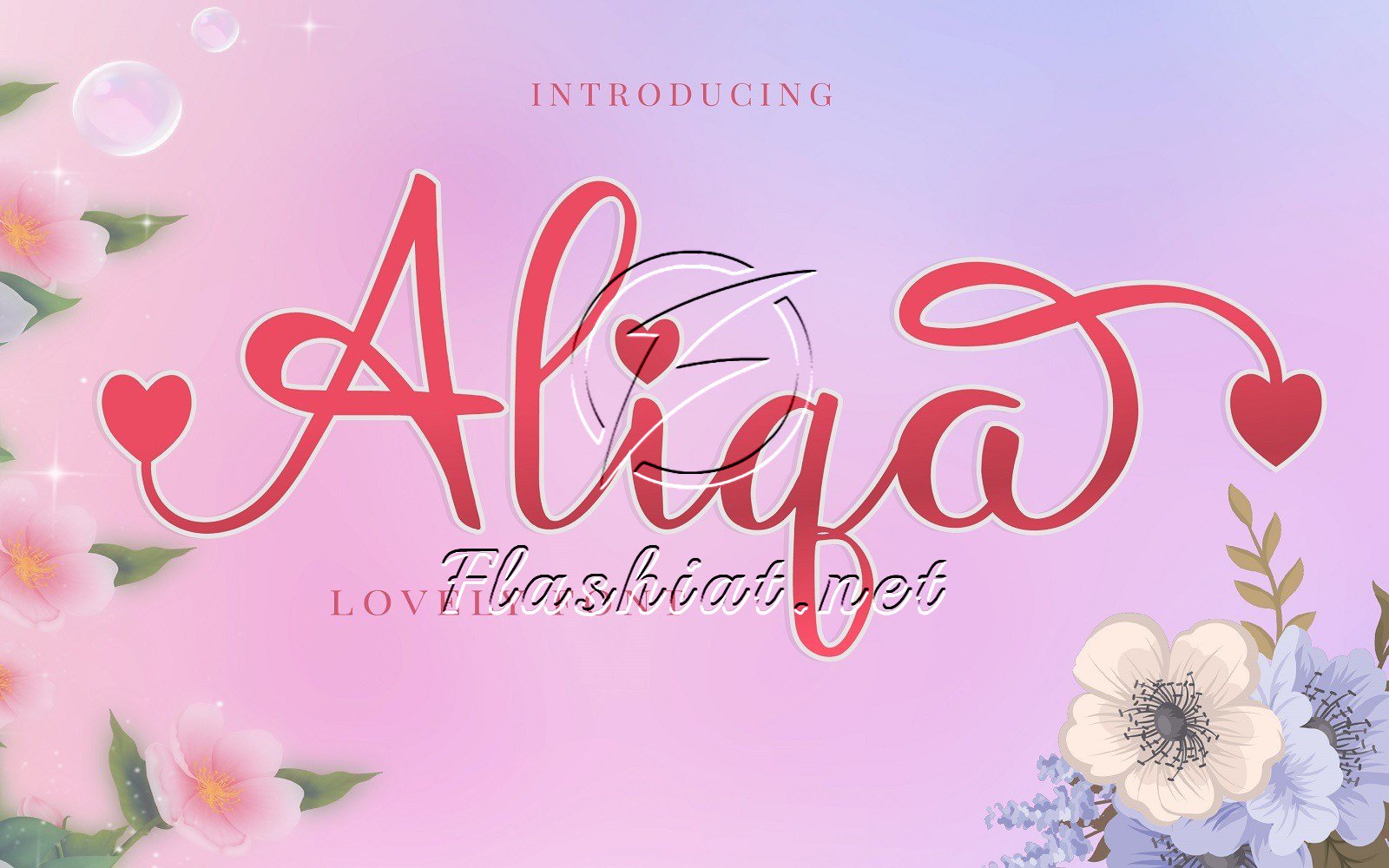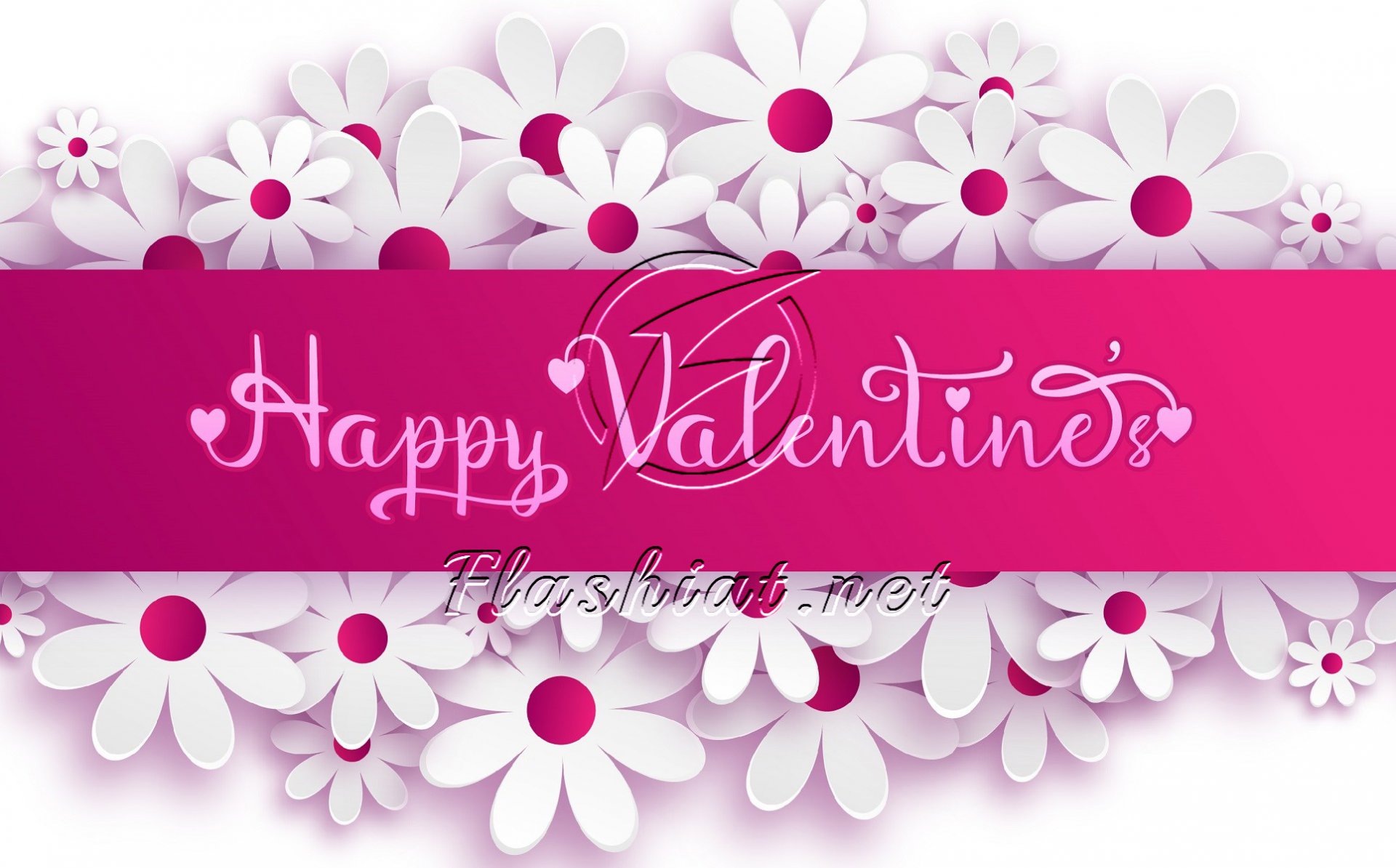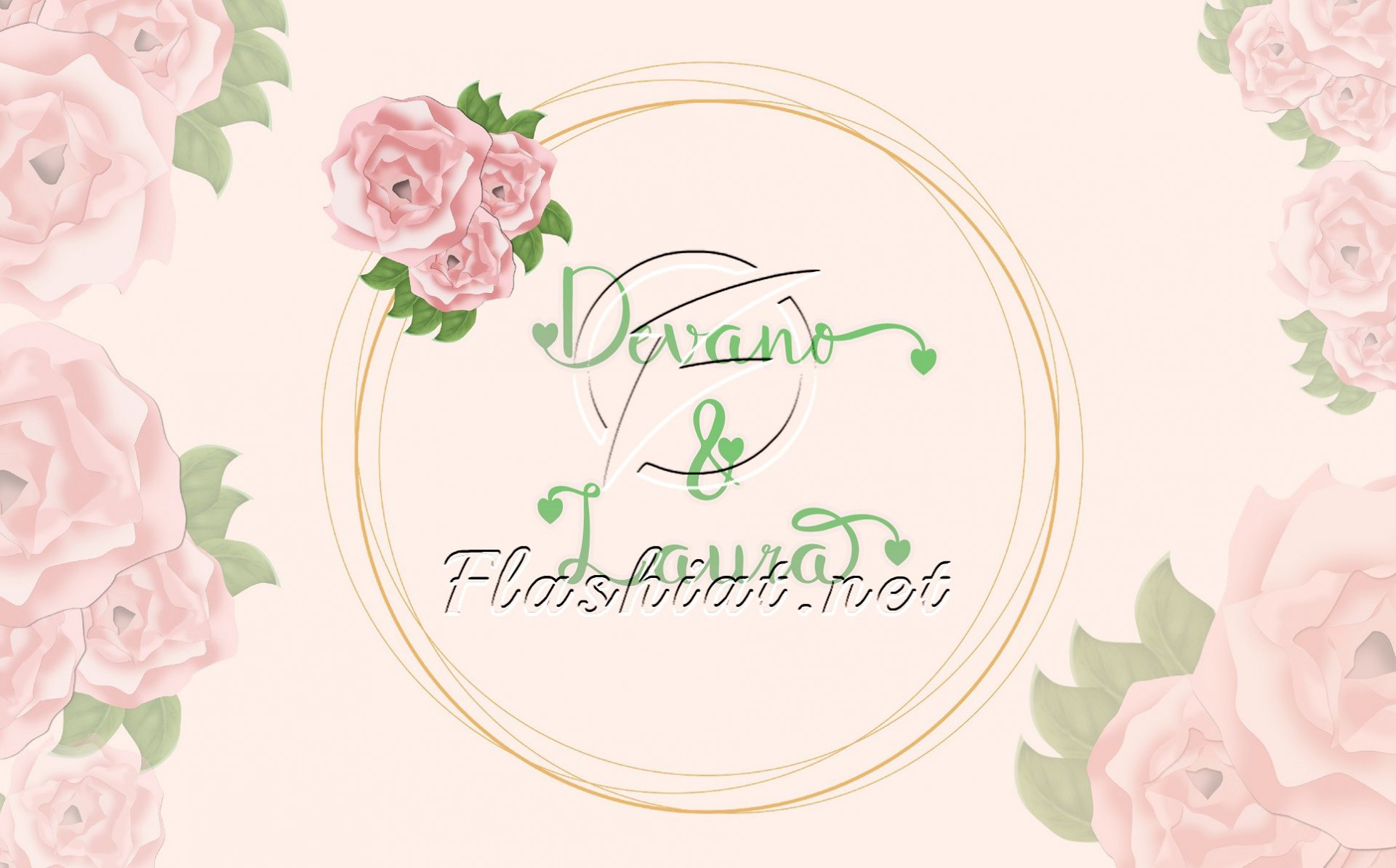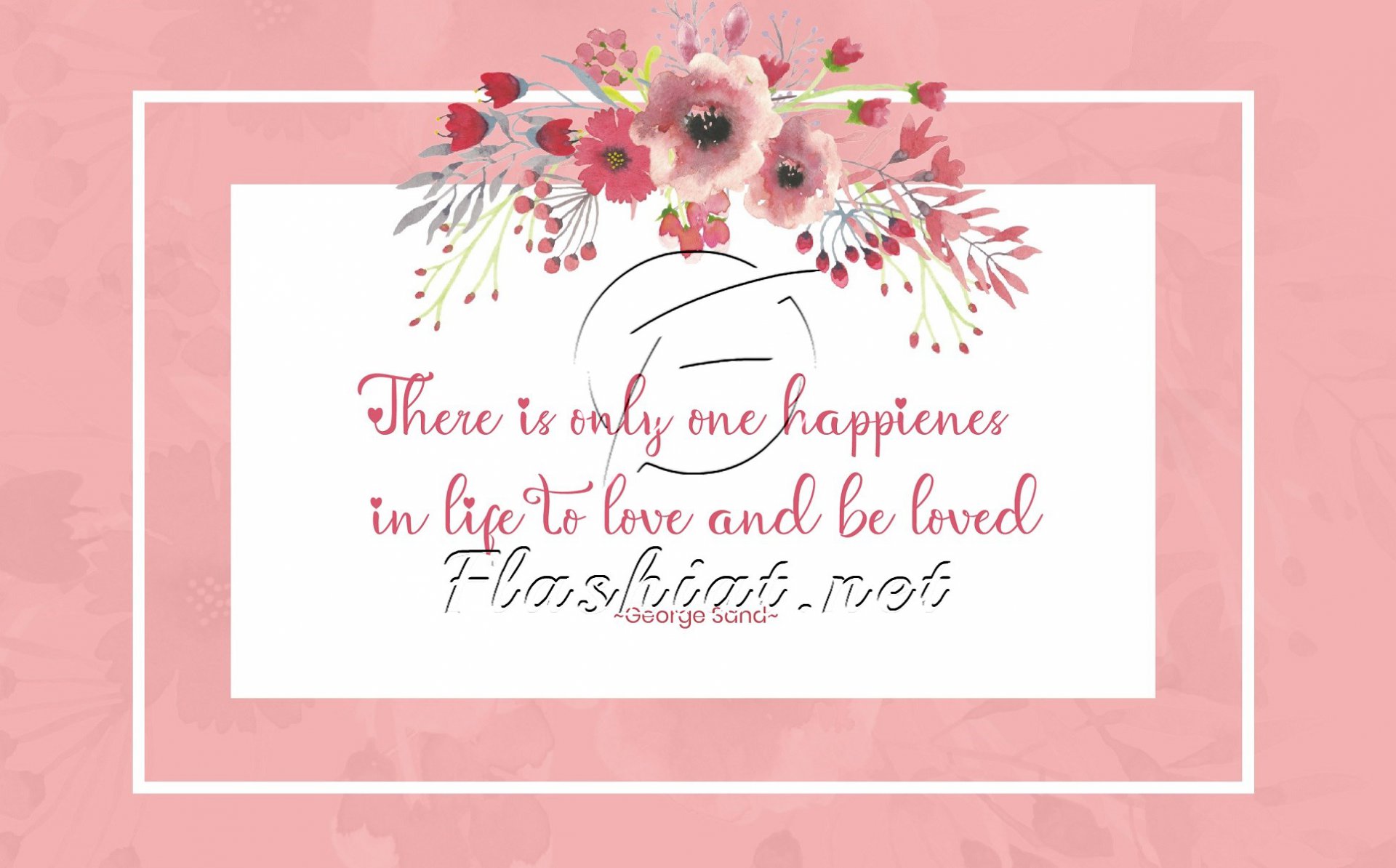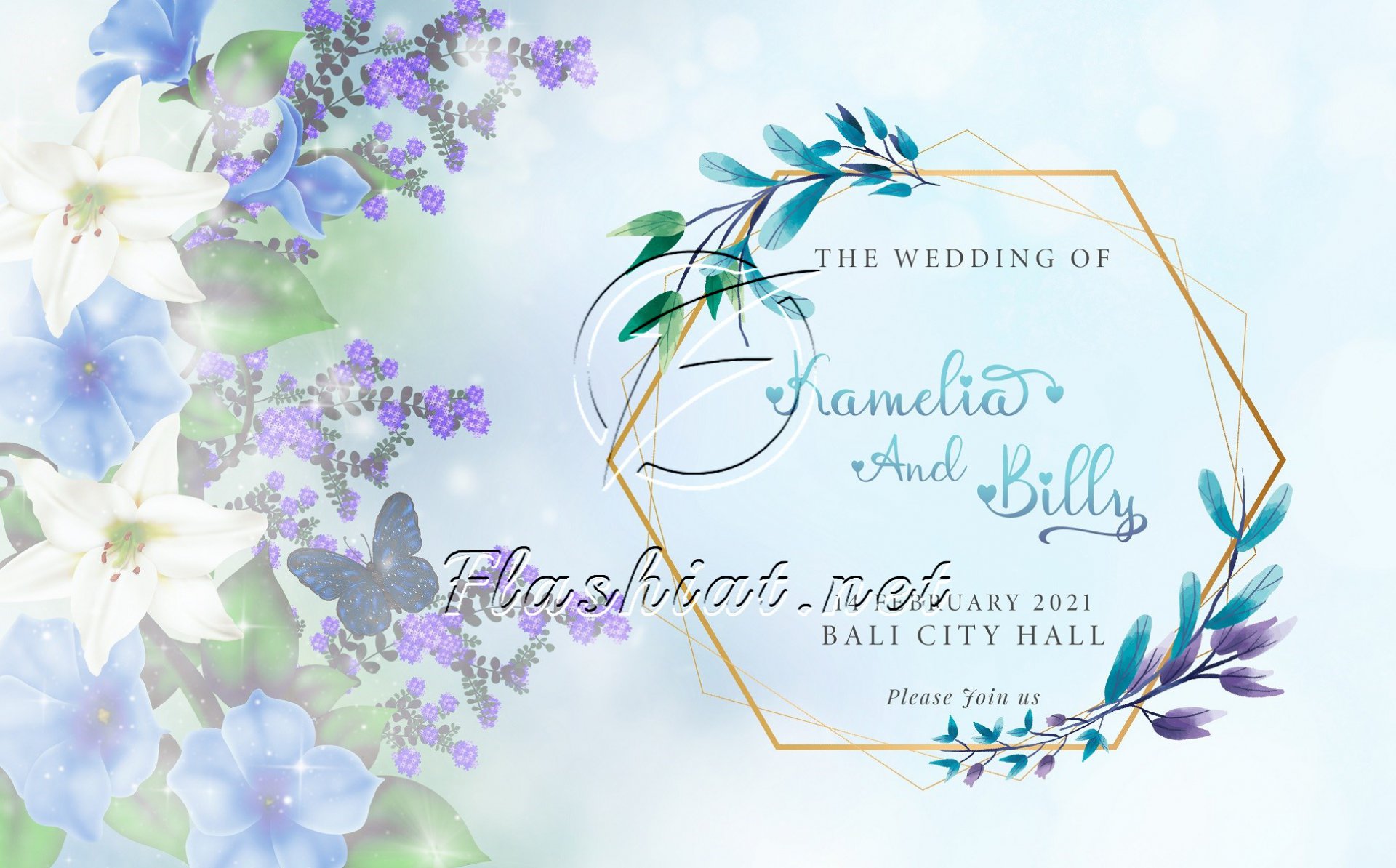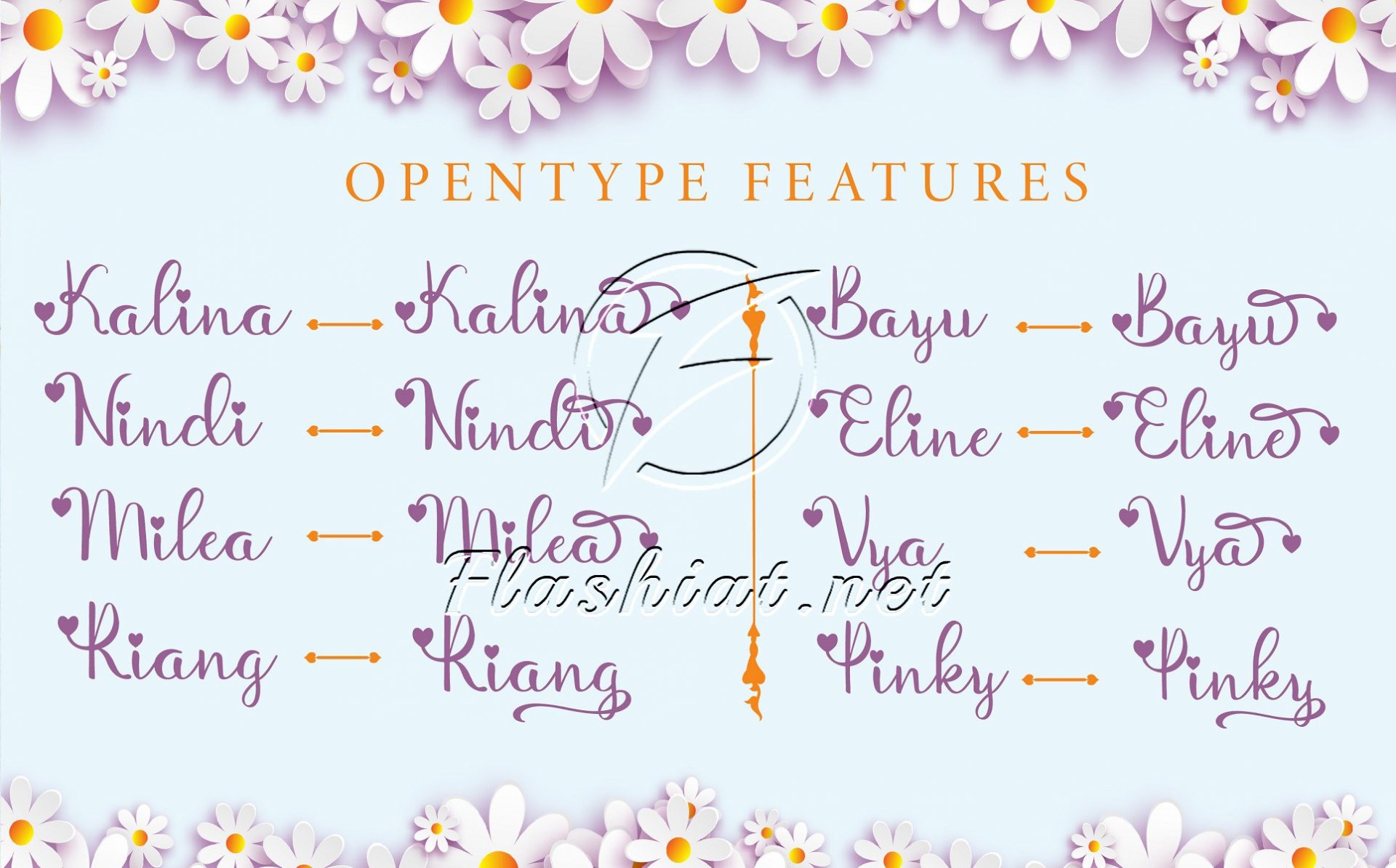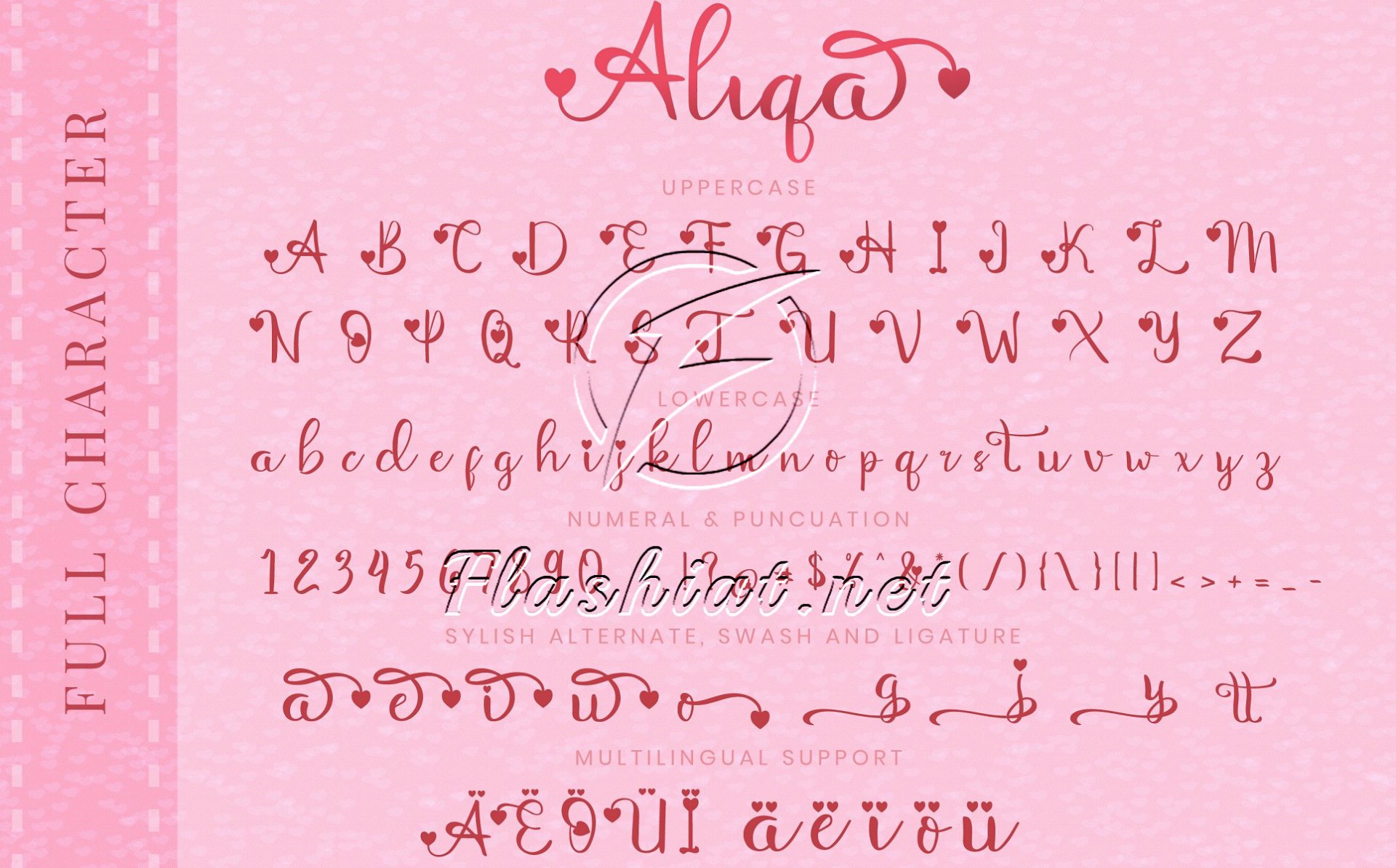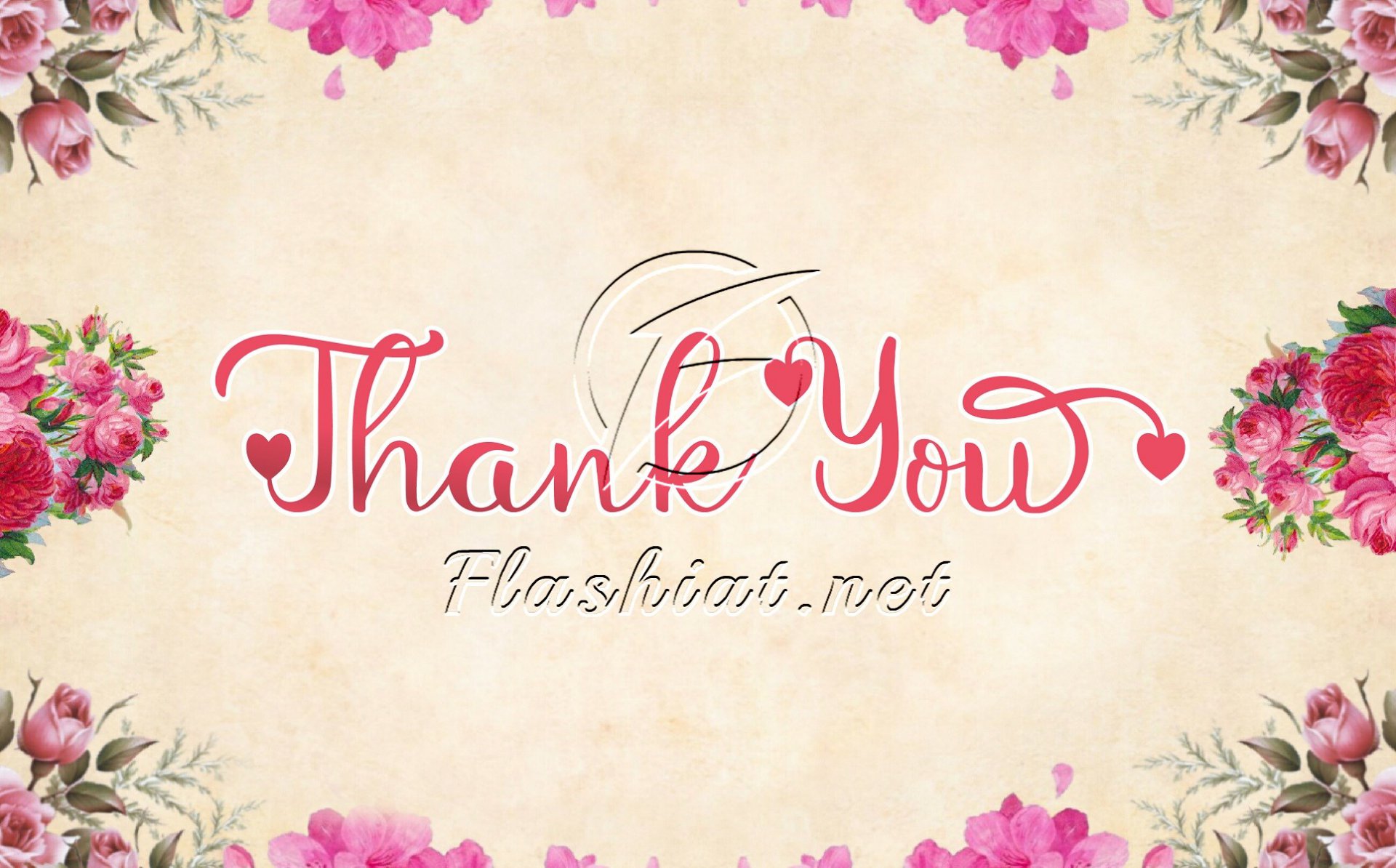
Aliqa is a lovely font is a Beautiful and sweet font that will give a beautiful impression to your designs
Aliqa would perfect for photography, watermark, social media posts, quote,
logos & branding, invitation, product designs, label, stationery, wedding designs, product packaging, special events, or anything that need handwriting taste.
- Ligature and Stylish Set